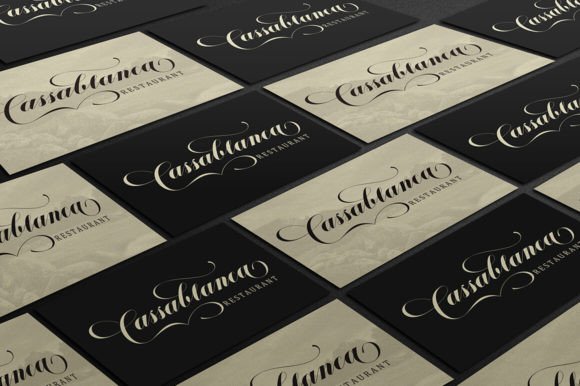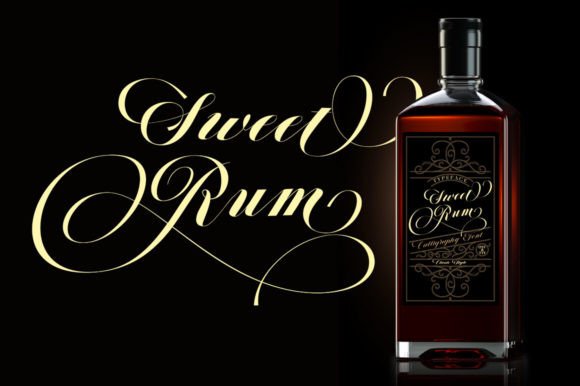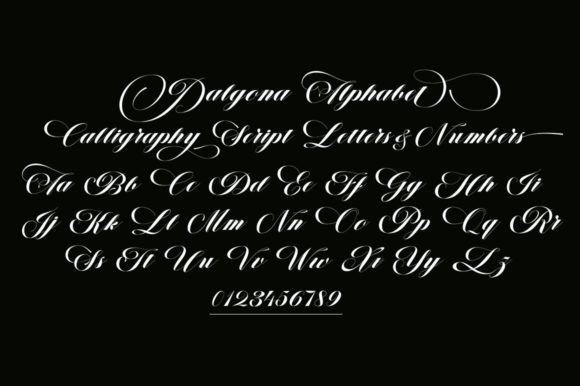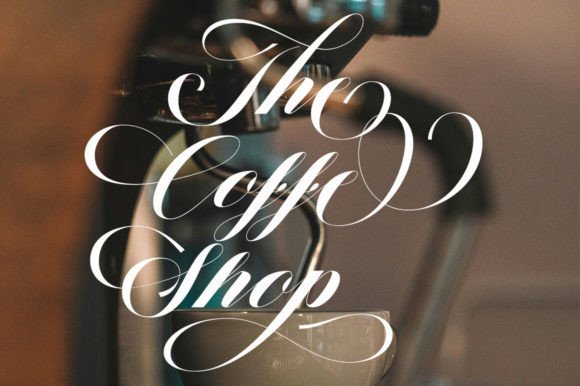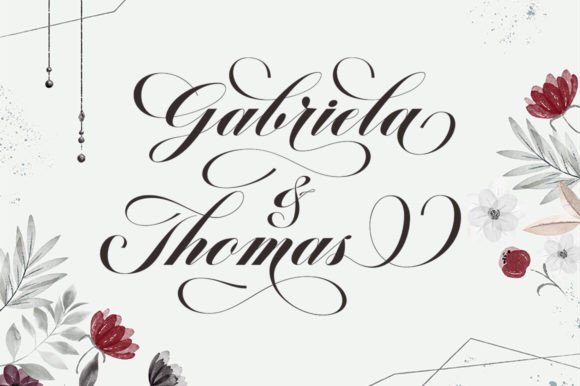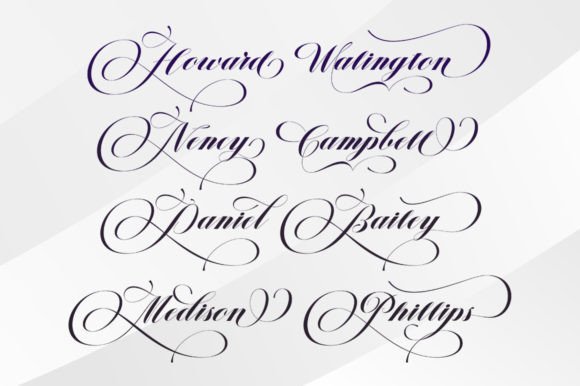
The Elegance of Dalgona Calligraphy Fonts: Elevating Design with Timeless Sophistication
Dalgona calligraphy fonts represent the pinnacle of hand-written lettering, where artistry meets precision to create visually stunning texts. These fonts are characterized by their fluid, flowing lines and intricately embellished strokes, exuding a sense of timeless elegance that captivates audiences. From ornate and classic to modern and minimalistic, Dalgona calligraphy fonts offer a diverse range of styles to suit various design needs.
The Art of Calligraphy: A Blend of Grace and Detail
Calligraphy, at its core, is the art of beautiful handwriting. Dalgona calligraphy fonts embody this art form, with each letter meticulously crafted to convey a sense of sophistication and refinement. The unique flourishes and connecting strokes that define these fonts make them ideal for formal events, invitations, and any design project where a touch of elegance is desired.
Characteristics of Dalgona Calligraphy Fonts
Dalgona calligraphy fonts are distinguished by several key characteristics:
- Fluid Lines: The flowing lines of Dalgona calligraphy fonts create a sense of movement and dynamism, drawing the viewer’s eye through the text.
- Embellished Strokes: Intricate flourishes and embellishments add a level of sophistication and refinement to each letter.
- Unique Letterforms: Each letter in a Dalgona calligraphy font is often uniquely designed, featuring distinctive shapes and proportions.
- Connecting Strokes: Many Dalgona calligraphy fonts feature connecting strokes that link letters together, creating a sense of continuity and flow.
Styles of Dalgona Calligraphy Fonts
Dalgona calligraphy fonts encompass a wide range of styles, from traditional and ornate to modern and minimalist. Some popular styles include:
- Ornate and Classic: These fonts feature intricate flourishes and embellishments, evoking a sense of luxury and sophistication.
- Modern and Minimalist: These fonts offer a more restrained approach, with clean lines and subtle flourishes.
- Copperplate and Brush Script: These fonts are inspired by traditional calligraphy techniques, featuring smooth lines and expressive letterforms.
Applications of Dalgona Calligraphy Fonts
Dalgona calligraphy fonts are versatile and can be used in a variety of design applications, including:
- Wedding Invitations: Add a touch of elegance and sophistication to wedding invitations with Dalgona calligraphy fonts.
- Event Branding: Use Dalgona calligraphy fonts to create stunning event branding, including logos, signage, and marketing materials.
- Packaging Design: Elevate packaging design with Dalgona calligraphy fonts, adding a touch of luxury and refinement to product labels and packaging.
- Digital Design: Incorporate Dalgona calligraphy fonts into digital designs, such as website headers, social media graphics, and email newsletters.
Tips for Using Dalgona Calligraphy Fonts
To get the most out of Dalgona calligraphy fonts, follow these tips:
- Use Sparingly: Use Dalgona calligraphy fonts sparingly to avoid overwhelming the design.
- Pair with Simple Fonts: Pair Dalgona calligraphy fonts with simple, clean fonts to create visual contrast.
- Consider Legibility: Ensure that the font is legible, even at smaller sizes.
- Experiment with Colors: Experiment with different colors and textures to add depth and interest to the design.
In conclusion, Dalgona calligraphy fonts offer a world of creative possibilities for designers and crafters. With their timeless elegance, fluid lines, and intricate flourishes, these fonts are sure to elevate any design project. Whether you’re creating wedding invitations, event branding, or packaging design, Dalgona calligraphy fonts are the perfect choice for adding a touch of sophistication and refinement.